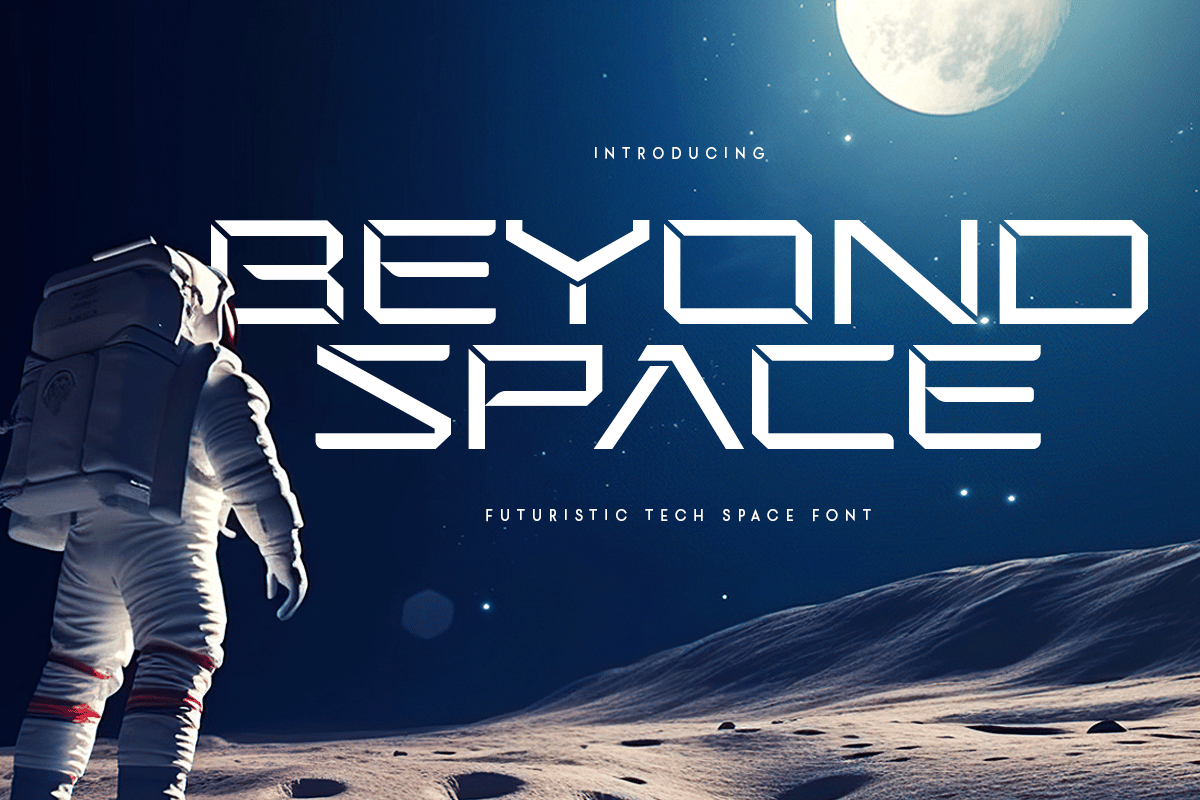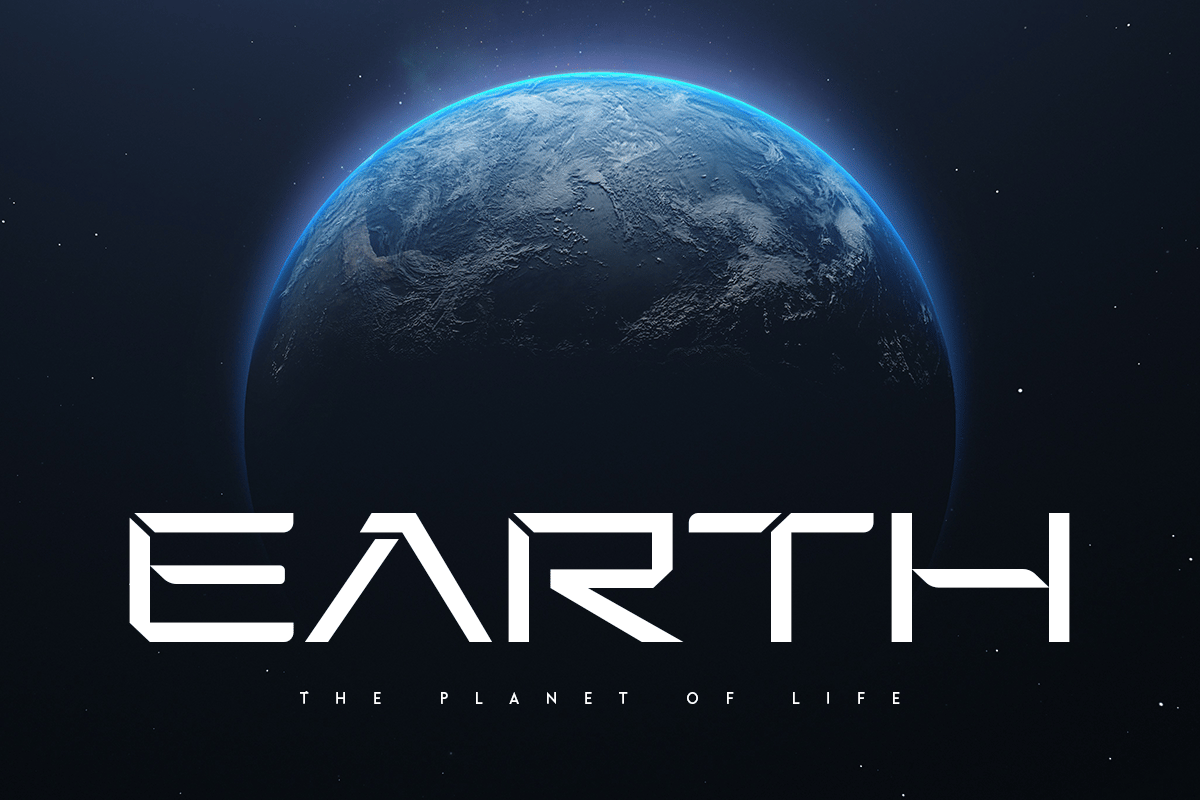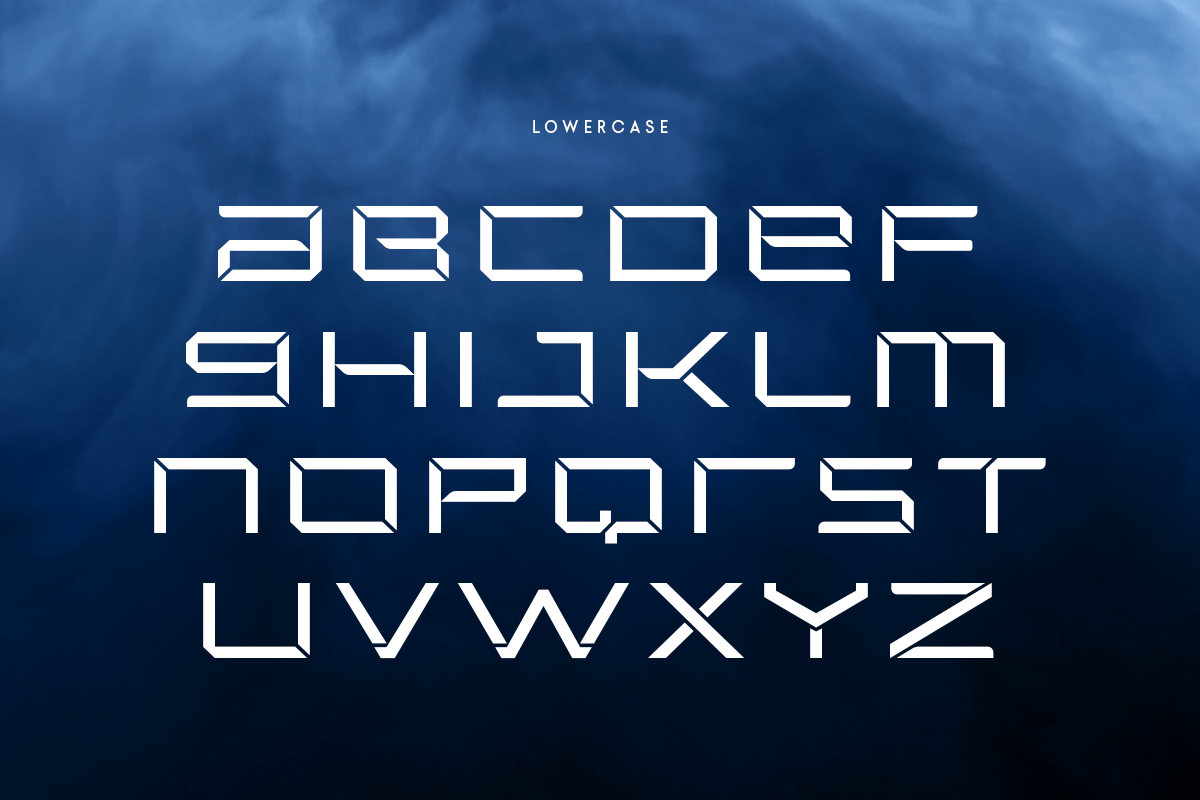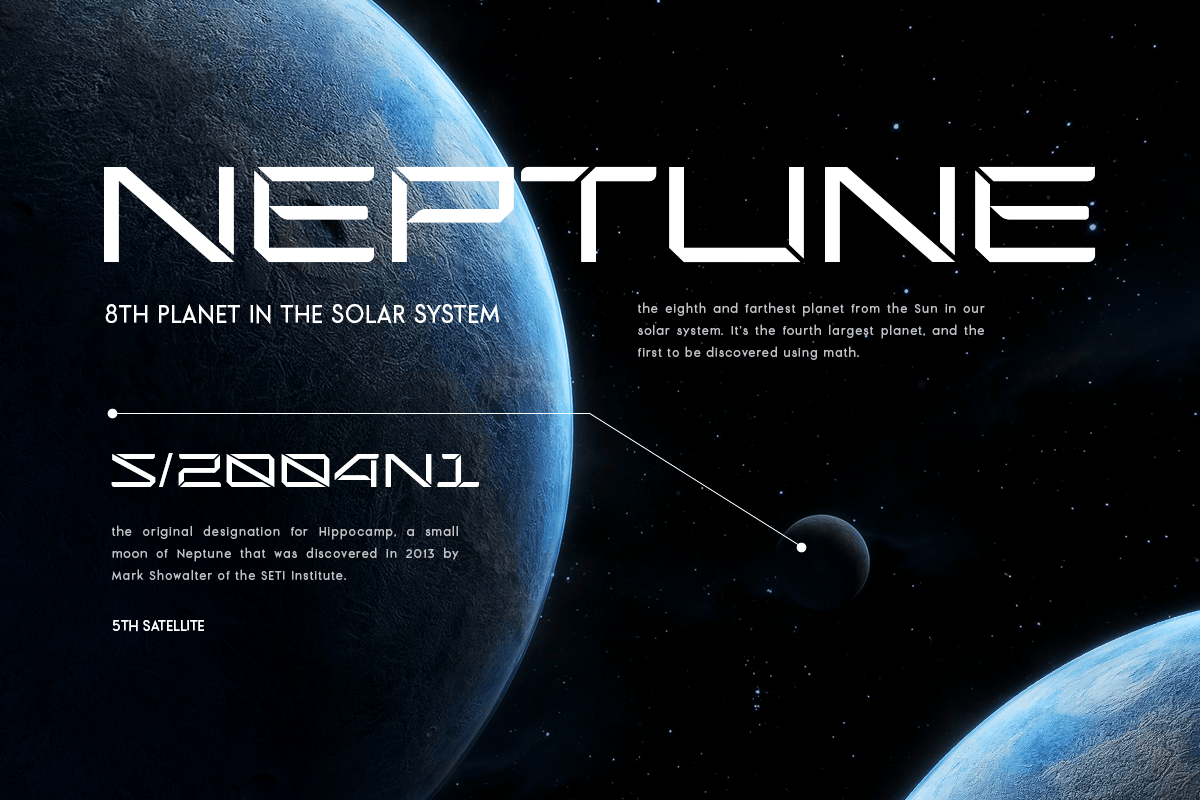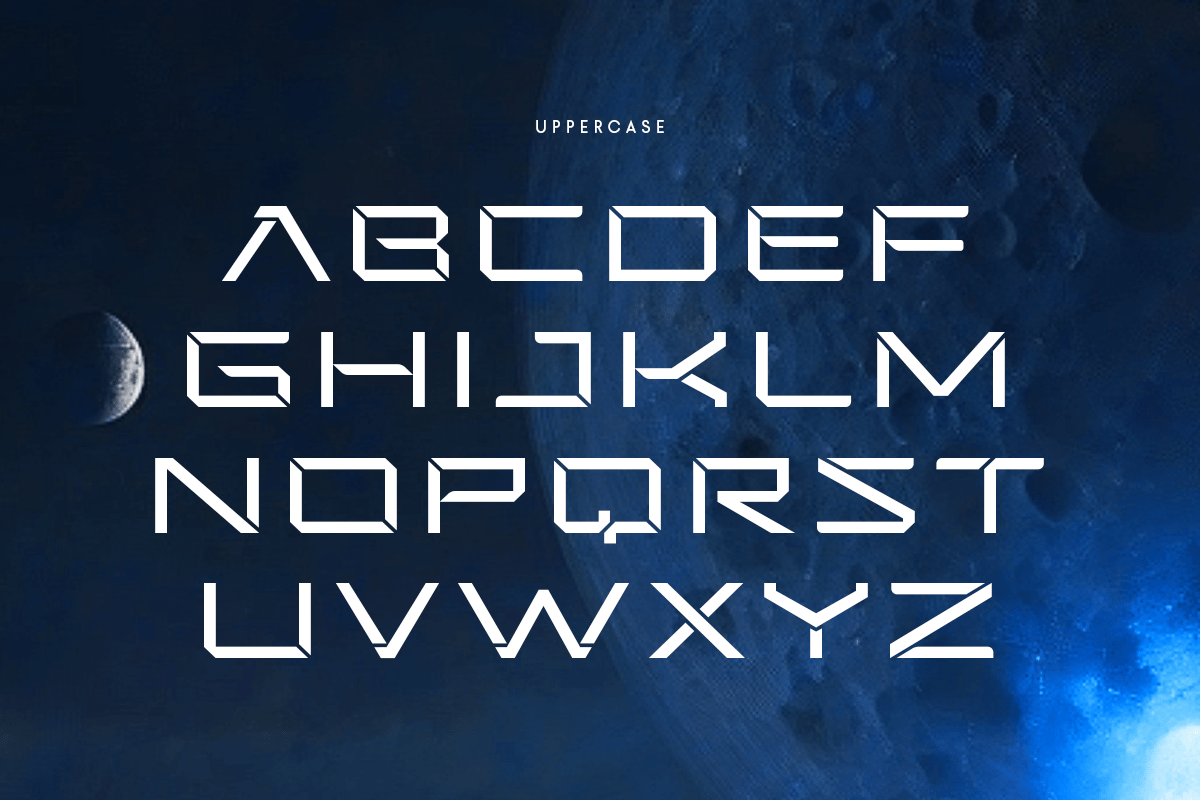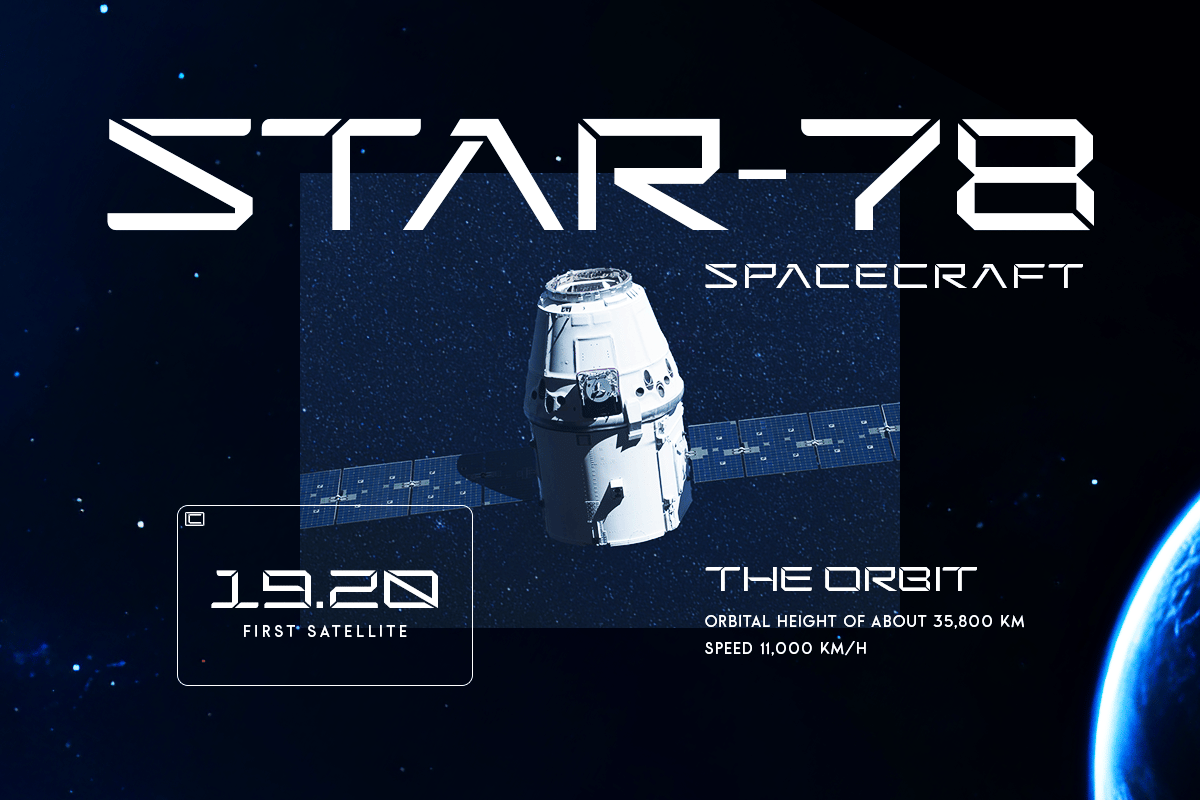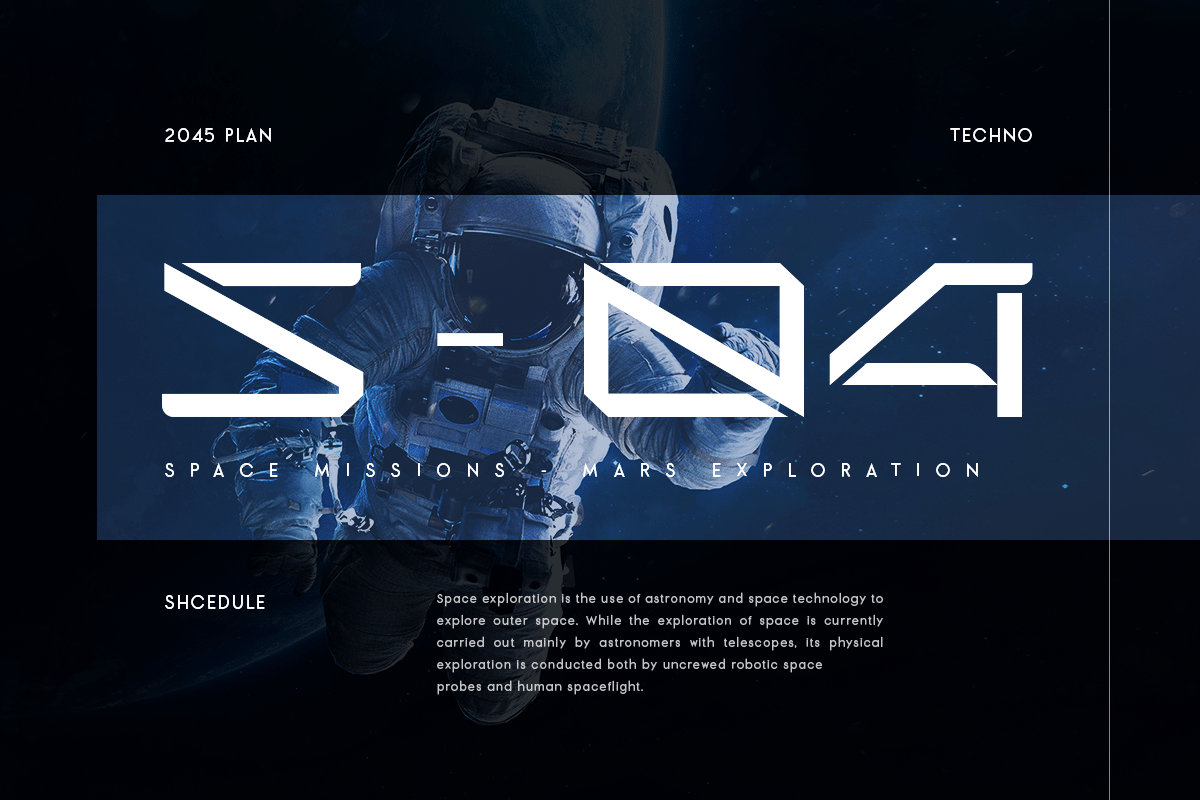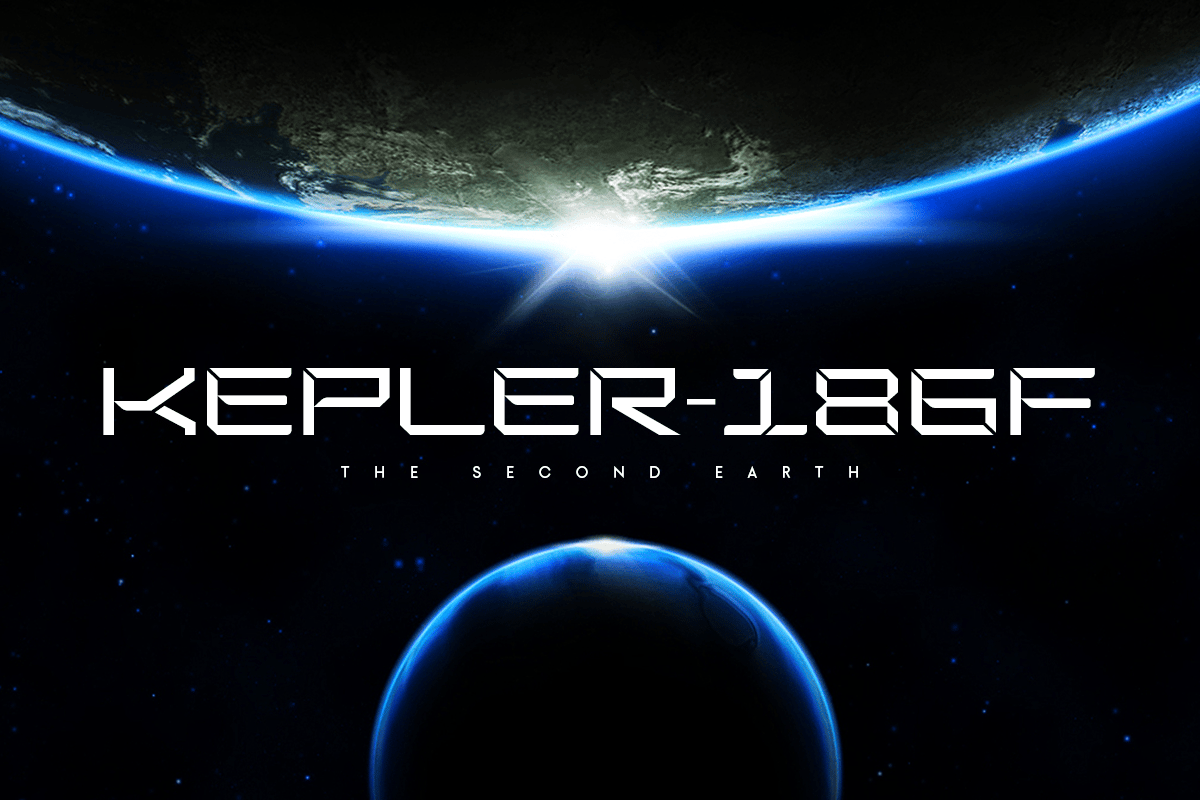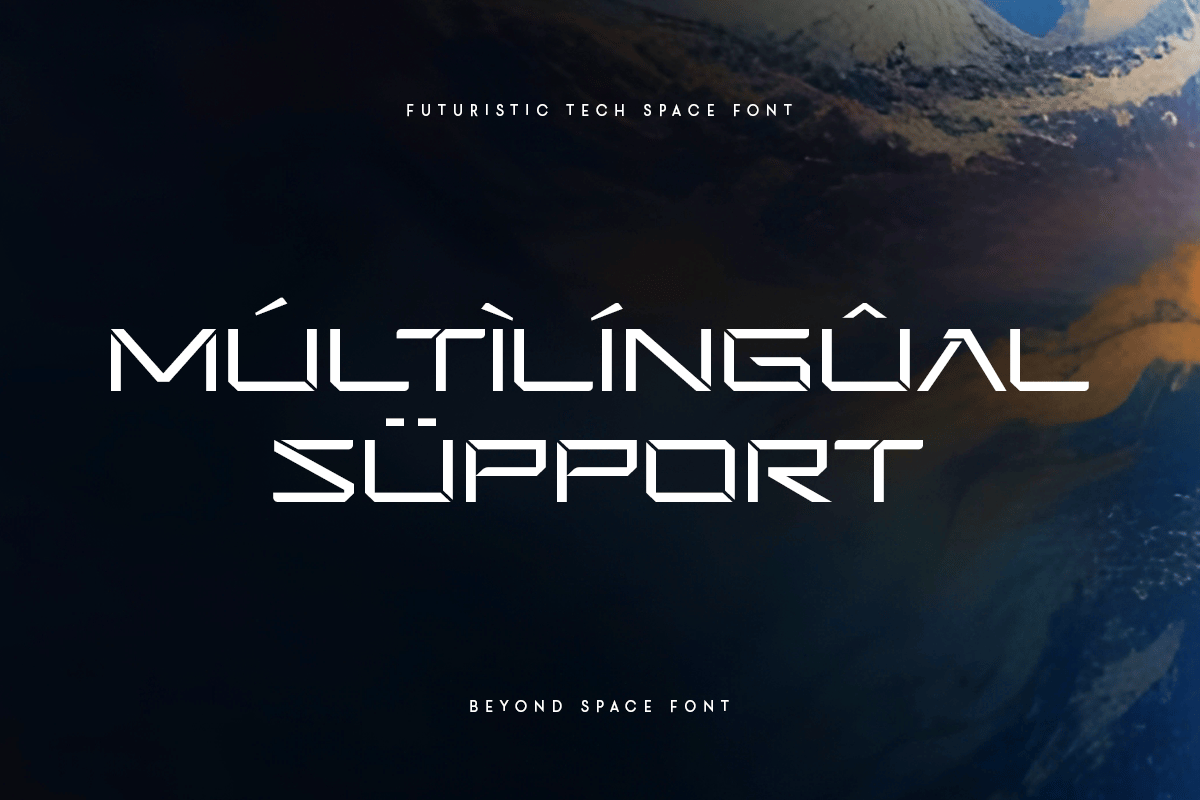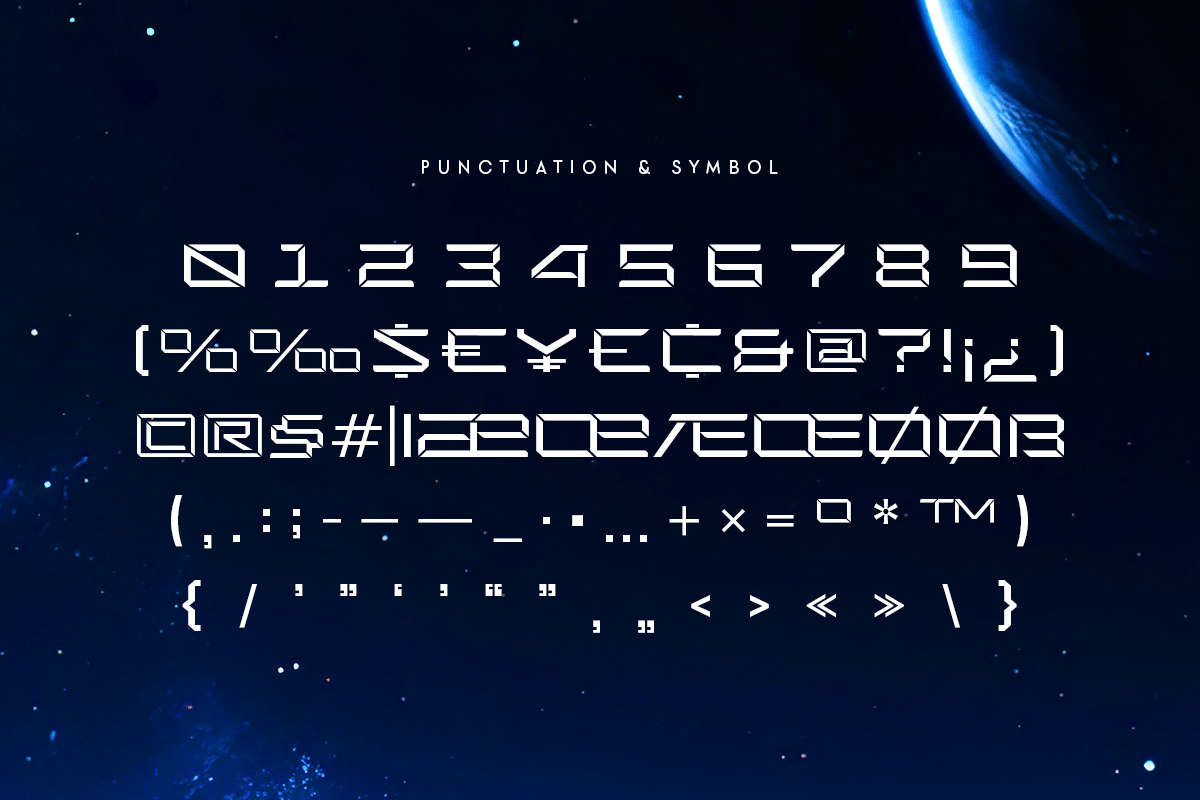
Beyond Space – Futuristic Tech Space Font
Introducing Beyond Space, a font that transcends the ordinary and takes your designs to new dimensions. Inspired by the vastness of space and the cutting-edge technology that propels us into the future, Beyond Space offers a sleek and modern aesthetic perfect for innovative projects.
The Story Behind Beyond Space:
Imagine a font that captures the essence of the cosmos and the advanced technology that drives our exploration of it. Beyond Space was created with this vision in mind, merging the boundless inspiration of the universe with the sleek precision of futuristic tech. Each character is meticulously designed to reflect a balance between the boldness of space exploration and the sophistication of modern design.
Beyond Space Font Features:
- Futuristic Design: Sleek and modern, perfect for tech and space-themed projects.
- Tech-inspired Aesthetics: Clean lines and sharp angles that evoke a high-tech feel.
- Versatile Usage: Ideal for logos, headlines, posters, and digital artwork.
- High Legibility: Clear and readable, ensuring your message stands out.
- Inspirational Previews: Includes sample designs to ignite your creativity.
Perfect For:
- Tech Startups: Create logos and branding that stand out in the tech industry.
- Sci-fi Projects: Design eye-catching titles and graphics for sci-fi movies, games, and books.
- Space-themed Designs: Develop posters, banners, and digital art that capture the essence of the cosmos.
- Innovative Branding: Elevate your brand with a font that exudes modernity and forward-thinking.
With Beyond Space, your designs will transcend the ordinary and venture into the extraordinary. Whether you’re working on cutting-edge tech projects or space-inspired artwork, Beyond Space provides the perfect balance of style and sophistication. Explore the future with Beyond Space and let your creativity soar.